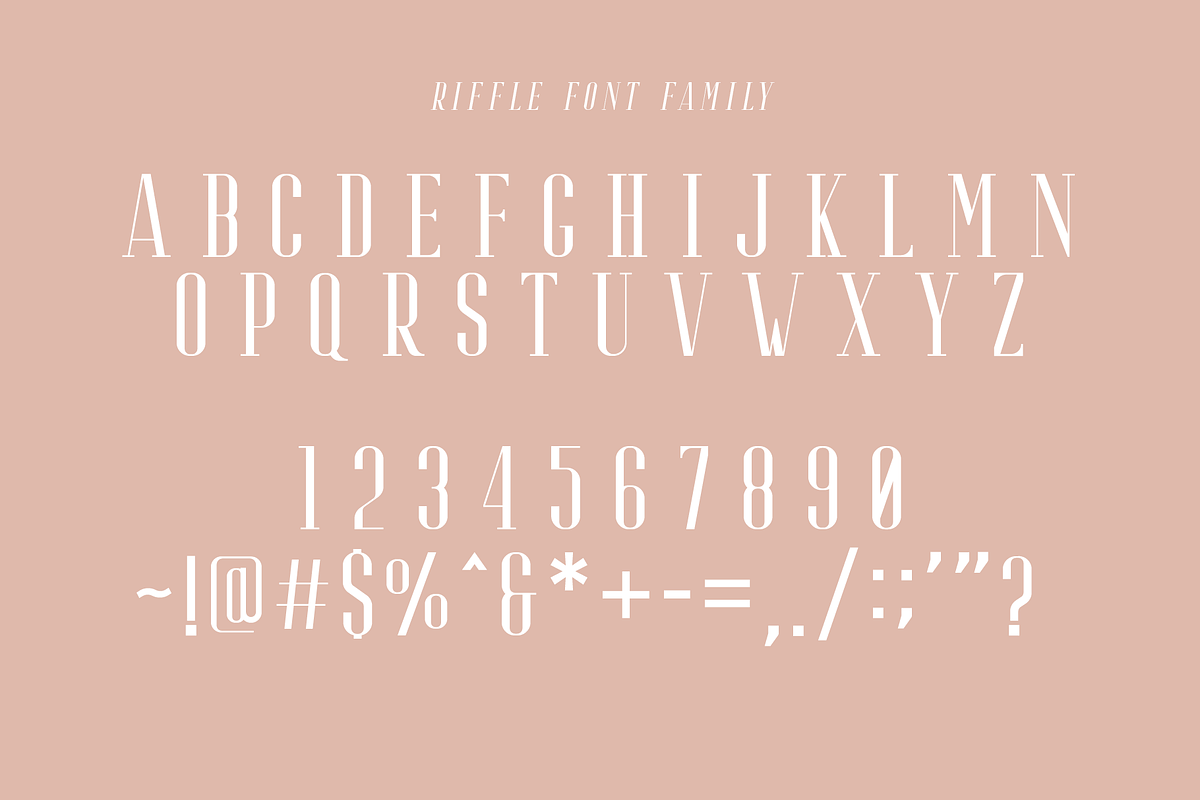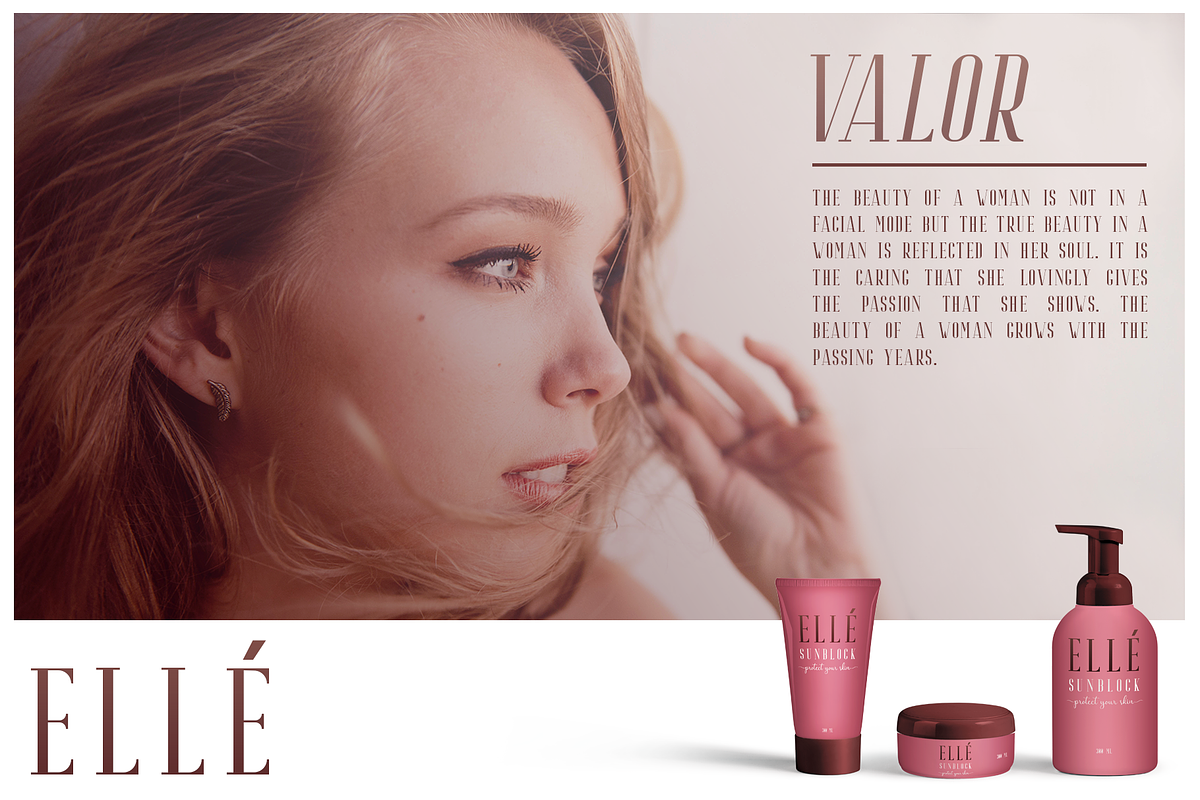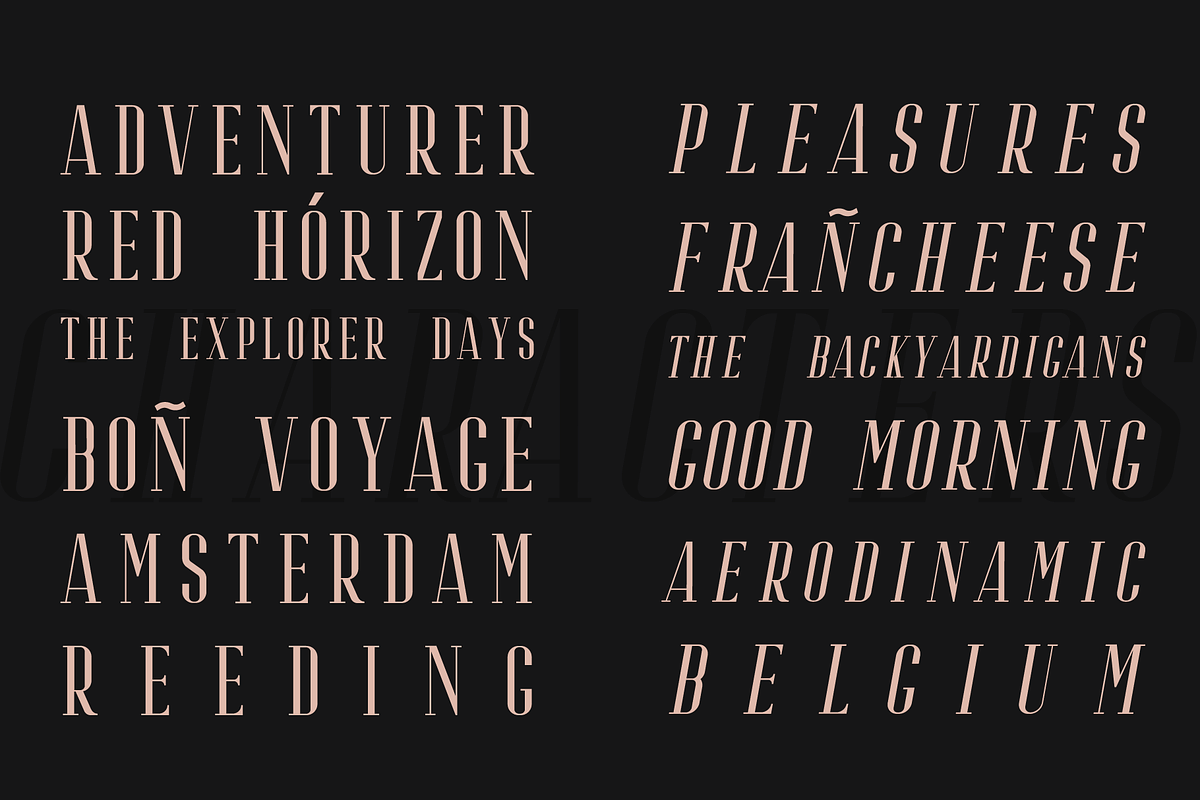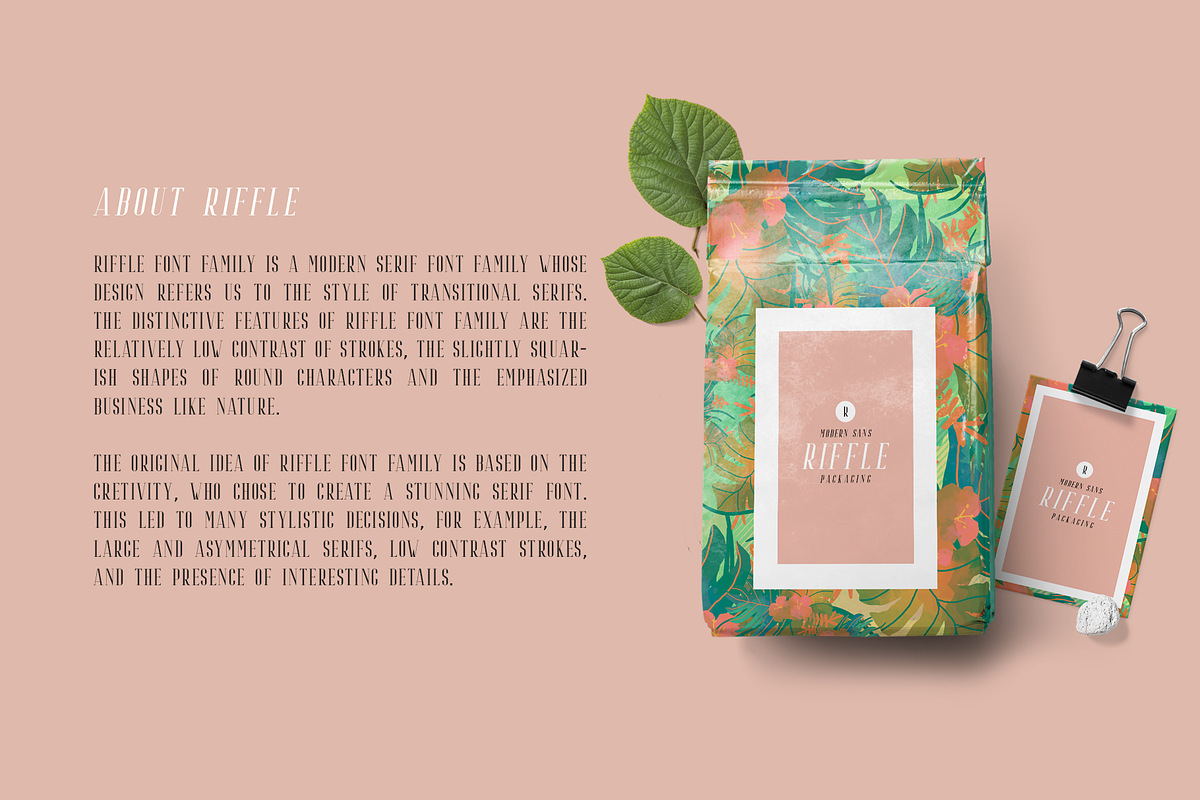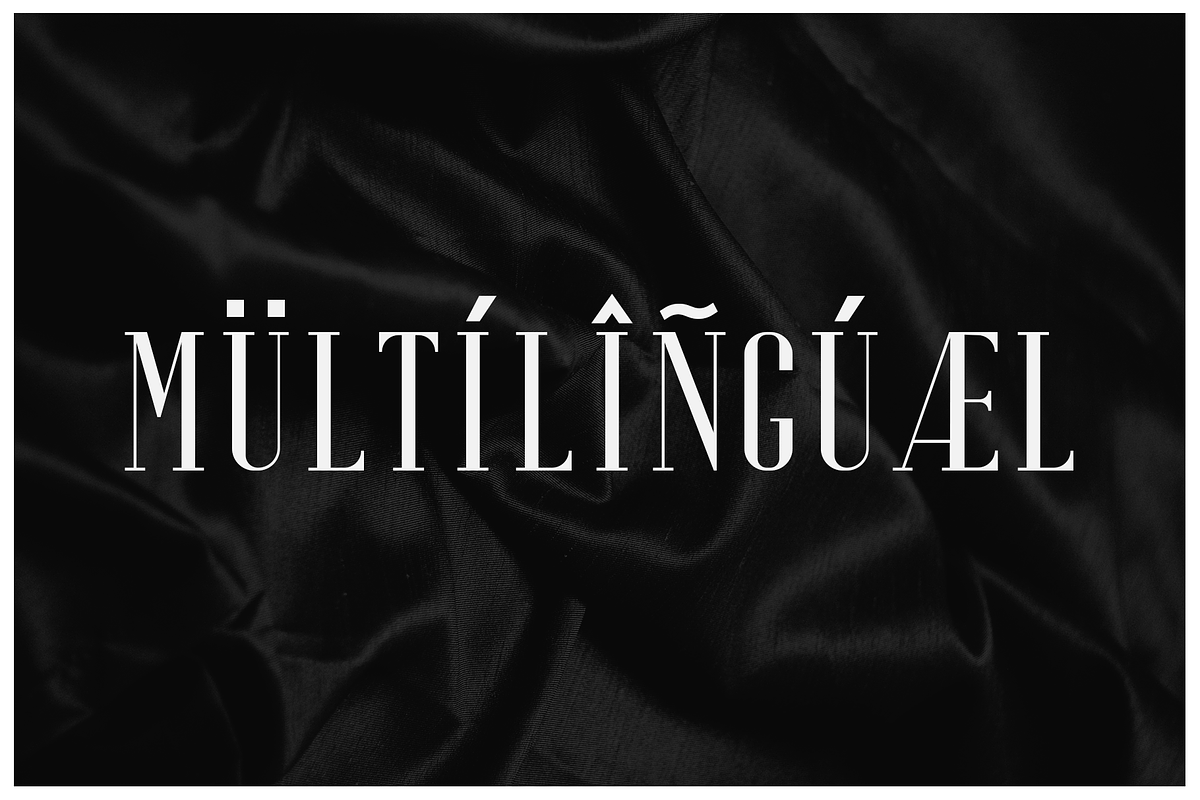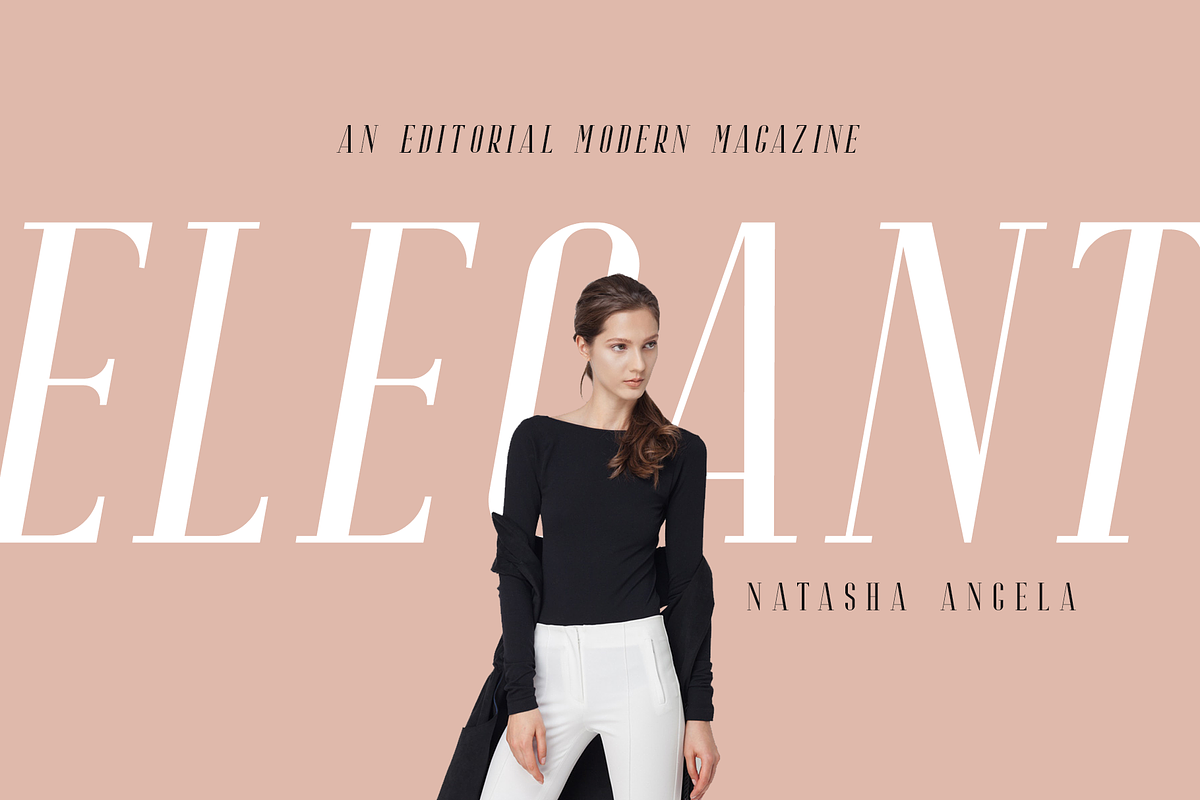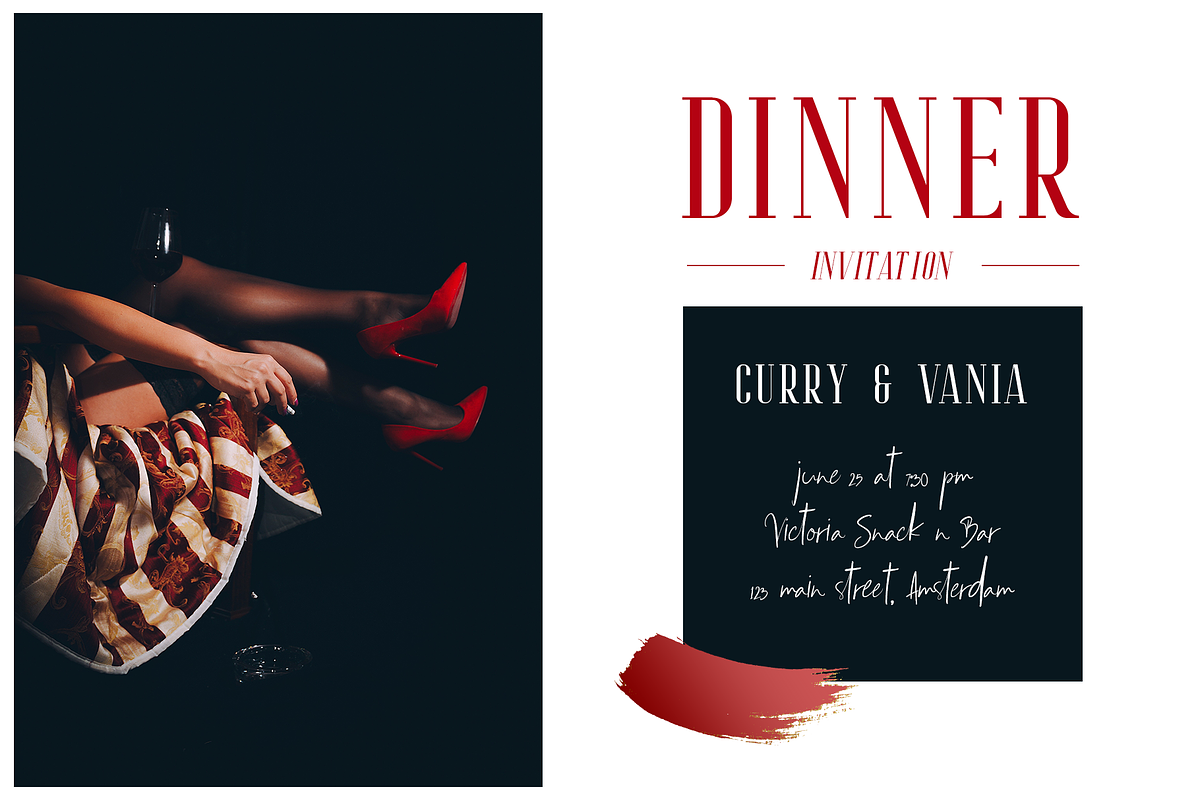
Riffle Font Family
Introducing New Font : Riffle Font Family
Riffle Font Family is a modern serif font family whose design refers us to the style of transitional serifs. The distinctive features of Riffle Font Family are the relatively low contrast of strokes, the slightly squarish shapes of round characters and the emphasized businesslike nature.
In the process of working on Riffle Font Family, we have significantly revised the initial idea and expanded the areas of possible font application, while maintaining the original spirit of the project. Despite the large number of display details, the typeface looks great in a small point size, and also when it is used in large text arrays.
Riffle Font Family features an original stylistic set which, when turned on, adds features of typical pointed-pen serifs to some of the lowercase characters. In addition, Riffle Font Family has small capitals for Latin and Cyrillic alphabets, as well as several interesting ligatures.
Riffle Font Family has been crafted from scratch with a structural logic of its own: a fusion of pure geometry and optical balance. By combining a variety of styles Riffle Font Family is suitable for Logo, greeting cards, quotes, posters, branding, name card, stationary, design title, blog header, art quote, typography
Riffle Font Family also suitable for art, modern envelope lettering or book design, happening style like handdrawn design or watercolor design theme, craft design, any DIY project, book title, wedding font, pop vintage design, or any purpose to make our art/design project look pretty and trendy.
1. Upper Case & Lowercase
2. Stylistic Alternates
3. Standard Ligatures
4. Numerals & Punctuations (OpenType Standard)
5. Accents (Multilingual characters)